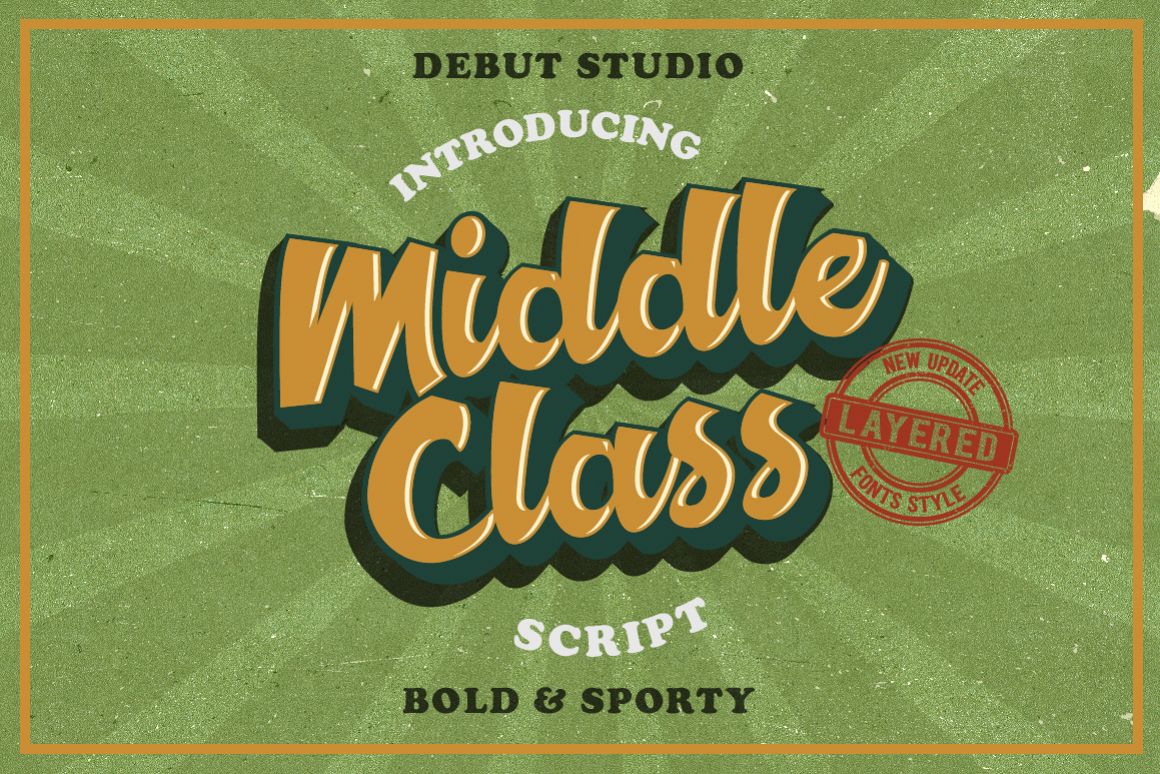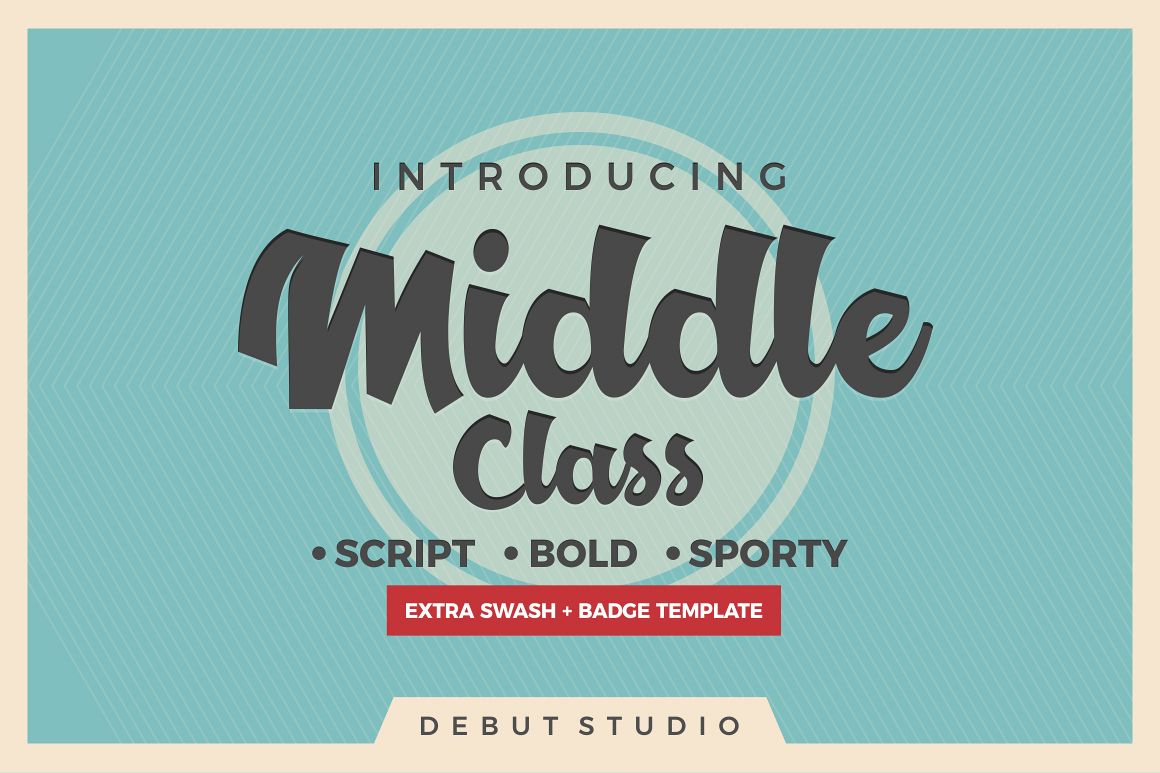
Middle Class Script Extra
Middle Class Script (Swash)
Middle Class Script
Introducing Middle Class Script
Middle Class Script inspired from hand-drawn lettering style and logotype,This fonts have uppercase, lowercase, numerals, punctuations and so many variations on each characters include opentype alternates, common ligatures and also additional swash to let you customise your designs.So Suitable to use for Logotype, Letterhead, Poster, Apparel Design, Label and etc
• Stylistic Alternate
• Swash